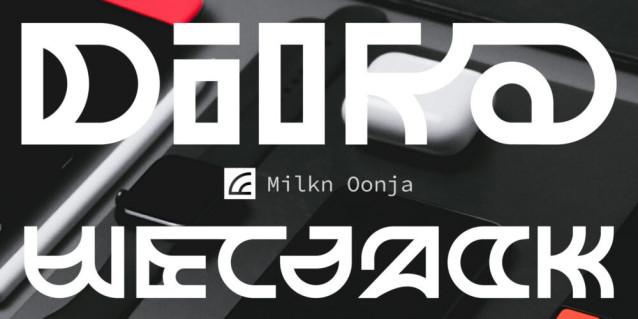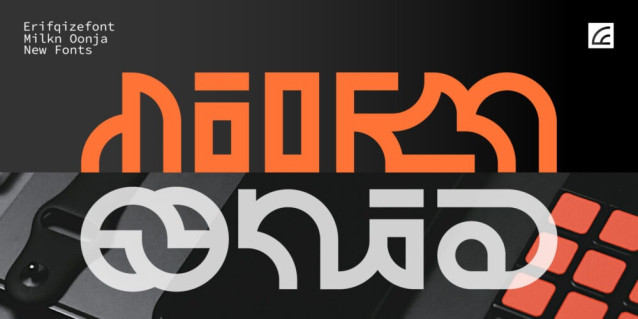
Milkn Oonja Font
Milkn Oonja Font is a display font designed with abstract and unique letterforms, giving every text a touch of creativity and individuality. This typeface features 67 ligatures that create natural letter combinations, perfect for standout designs.